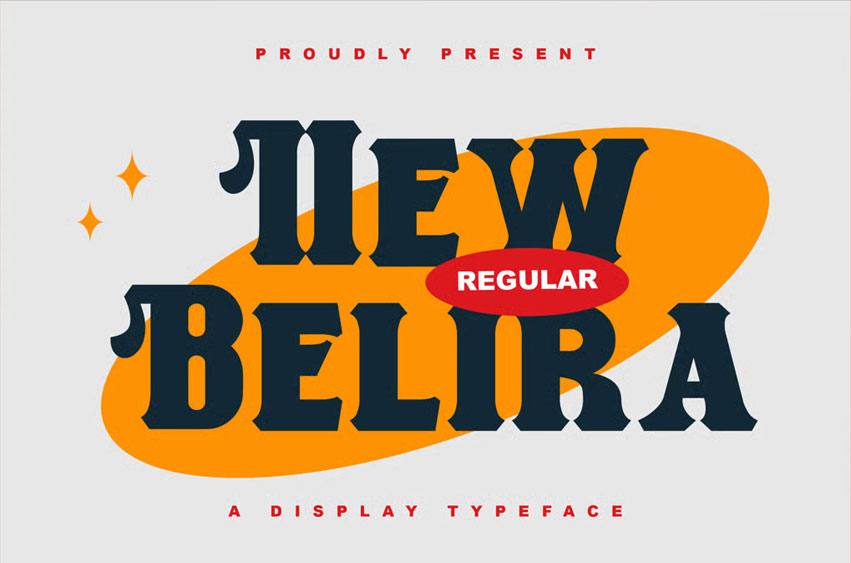
Belira Font is a bold serif typeface designed with a vintage-inspired concept, making it the perfect display font for any project that demands strength and character.
With its thick, commanding serifs and well-defined structure, Belira brings a timeless elegance to retro designs while maintaining modern appeal.